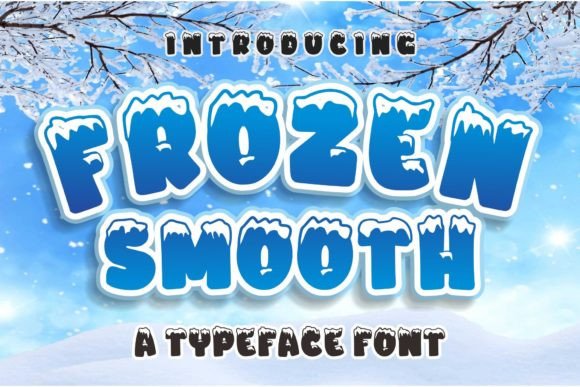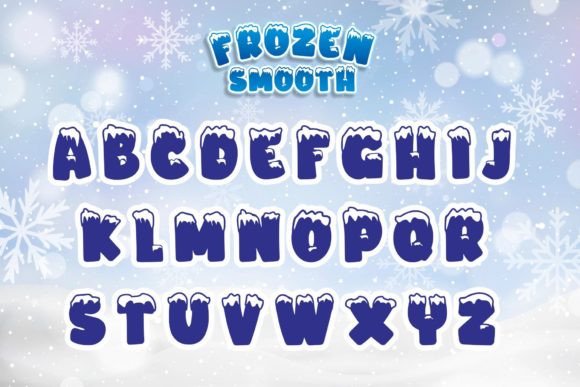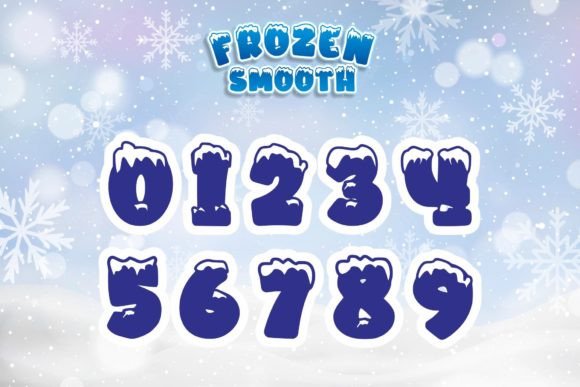
Frozen Smooth Font
Frozen Smooth is a cool and icy display font. Masterfully designed to become a true favorite, this font has the potential to bring each of your creative ideas to the highest level!